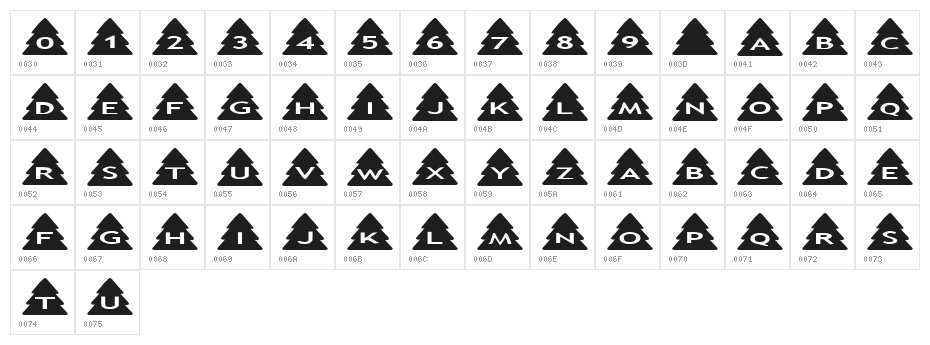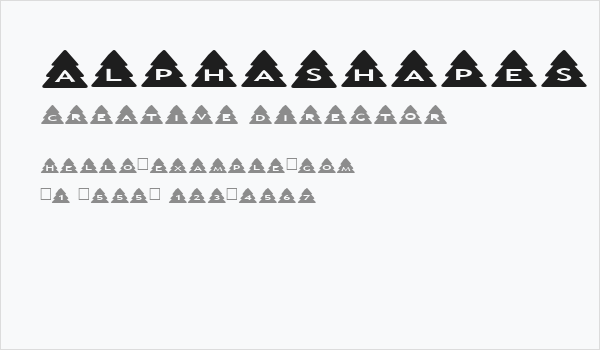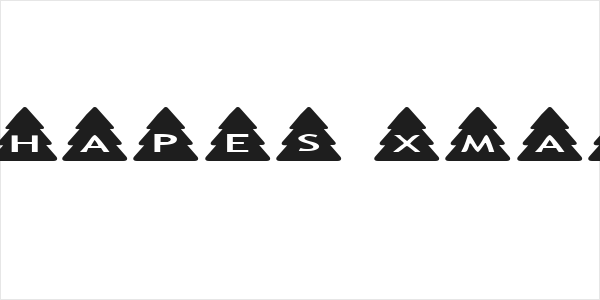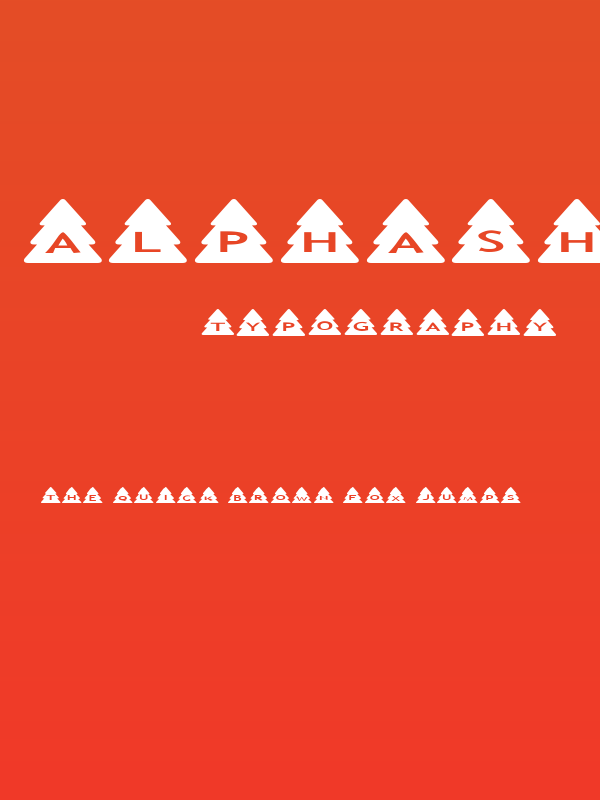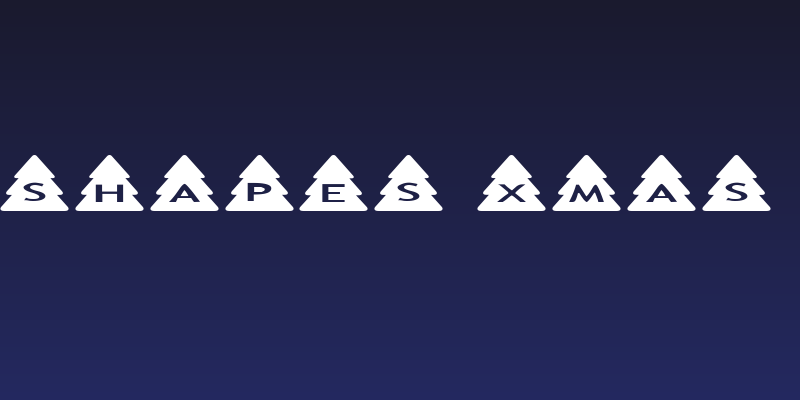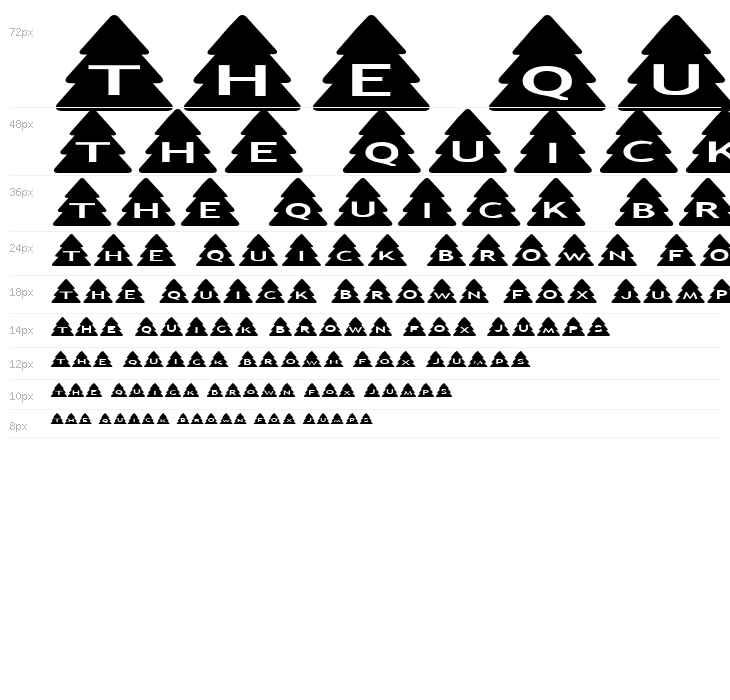
AlphaShapes xmas trees Font
AlphaShapes xmas trees Description
This playful and festive font features characters enclosed within stylized Christmas tree shapes. Each letter and number is centered within a bold, triangular tree silhouette, creating a unique and eye-catching appearance. The font is highly decorative, with a strong holiday theme that makes it perfect for seasonal designs. The characters are evenly spaced within their tree shapes, ensuring readability while maintaining the decorative aspect. This font is ideal for projects that require a fun and thematic touch, such as holiday cards, festive banners, or Christmas-themed event invitations.
Proposed ProjectsHoliday cards, festive banners, Christmas-themed event invitations, seasonal marketing materials.